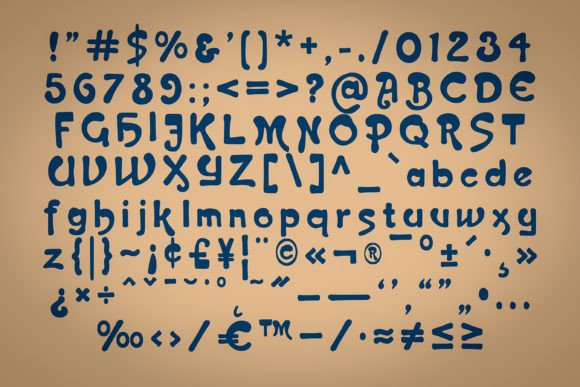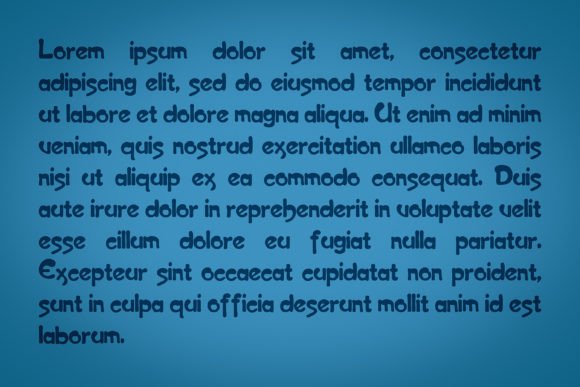
Introduction to Mississippi Font
As a designer, there’s nothing quite like the thrill of discovering a new font that sparks creativity and inspires your next project. For me, that moment came when I stumbled upon the Mississippi Font – a stunning, rounded display font that’s perfect for adding a touch of whimsy to your designs. With its non-traditional styling, it’s an instant eye-catcher that can elevate even the most mundane projects into something truly special.
Whether you’re working on a digital design, crafting a beautiful presentation, or creating a heartfelt greeting card, the Mississippi Font is an invaluable resource that’s sure to take your creative project to the next level. With a transparent background and high-quality design, it’s a free download that’s available to designers of all levels – making it a valuable addition to any design toolkit.
So, let’s dive in and explore the world of the Mississippi Font – a design resource that’s sure to bring a smile to your face and inspire your next creative endeavor.
Key Features of Mississippi Font
- Unique, hand-drawn design with a vintage feel, ideal for creative projects and design resources.
- High-quality font with transparent background, perfect for digital designs and applications.
- Perfect for use in logos, branding, and other creative projects where a unique, hand-drawn look is desired.
Honest Review: Mississippi Font
I recently stumbled upon the Mississippi Font and I must say it’s a great addition to any designer’s toolbox. This font is a free download, which is always a plus, and it offers a high quality design resource for creative projects.
What works well is the transparent background, which makes it easy to place over any image without losing any details. The font itself is clean and elegant, making it perfect for a variety of uses from corporate to personal projects.
- ✨ Transparent background for easy image placement
- ✨ High quality design resource for creative projects
However, there are a few limitations to consider. The font is not as versatile as some other options, and it may not be suitable for more complex design projects.
- ⚠️ Limited versatility in terms of design complexity
- ⚠️ May not be suitable for very large or complex design projects
Overall, I’m impressed with the Mississippi Font. It’s a great resource for designers looking for a high quality, easy-to-use font. While it may have some limitations, it’s definitely worth checking out for any creative project.
Mississippi Font
The Mississippi Font is a high-quality, free design resource ideal for creative projects. This versatile font features a transparent background, making it perfect for use in various design applications.
Tips for Getting the Most Out of the Mississippi Font
Use the Mississippi Font in conjunction with a high-quality image or background to create a visually appealing design.
Experiment with different font sizes and styles to add emphasis and create visual interest.
The Mississippi Font is ideal for use in:
Brochures and flyers
Business cards and letterheads
Posters and advertisements
Wedding invitations and event materials